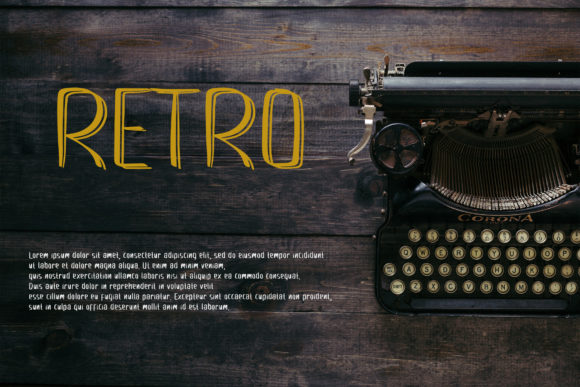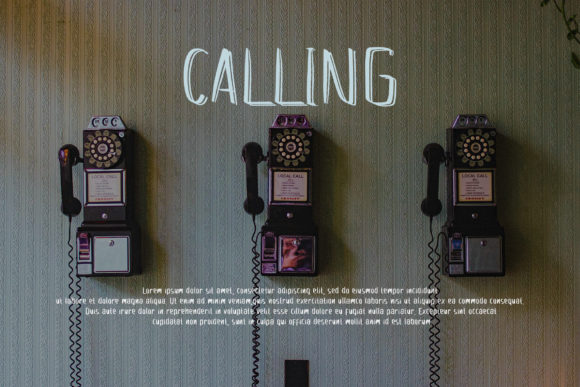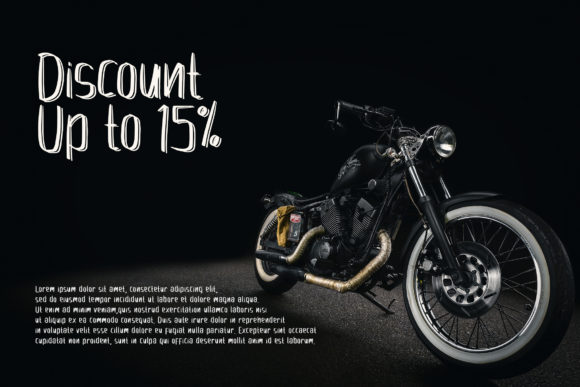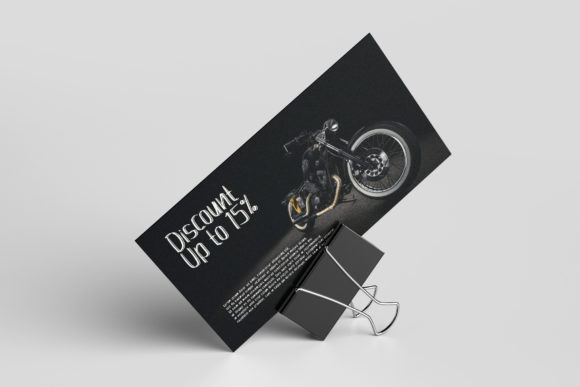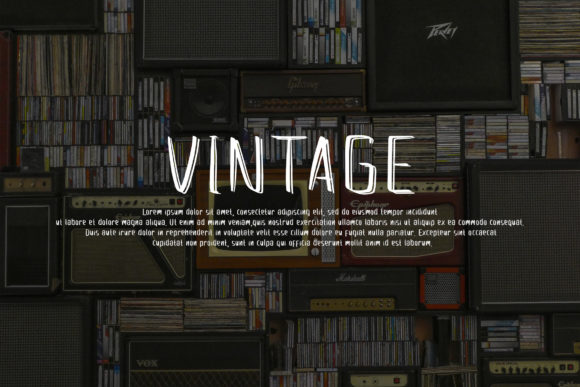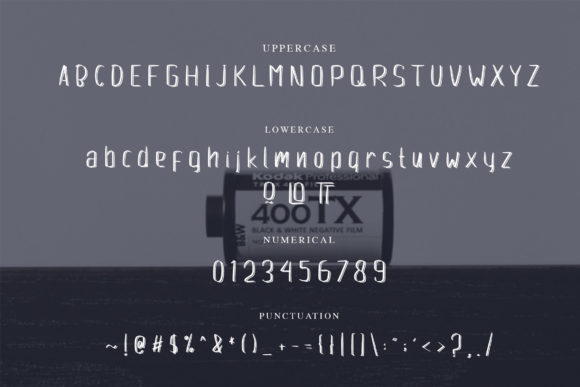
The Moment of Inspiration
It’s that instant when the creative spark ignites, and a blank page transforms into a canvas of endless possibilities. You’re on a mission to craft a unique visual identity, and the perfect font can make all the difference. Whether you’re designing a website, business card, or social media campaign, finding the right font can be a daunting task.
Enter the Goflow Font, a sleek and modern display font designed to add a touch of sophistication to your designs. With its thin lines and clean typography, Goflow Font is perfect for making a statement without overpowering the content. For designers, this versatile font is a valuable asset, offering a fresh and unique perspective on traditional typography.
Goflow Font Key Features
- Font Family: Goflow Font is a modern sans-serif font family designed for digital interfaces.
- Character Count: The font family includes over 700 glyphs, covering a wide range of languages and characters.
- Unique Characteristics: Goflow Font features a unique blend of geometric and organic elements, resulting in a distinctive and recognizable visual identity.
Goflow Font Review
I recently had the chance to work with the Goflow font, and I must say it’s been a mixed bag. On the one hand, there are some things that I really like about it.
- ✨ Elegant and sophisticated design: Goflow font has a clean and modern look that makes it perfect for high-end branding and advertising projects.
- ✨ Highly legible: The font is very easy to read, even at small sizes, making it ideal for body text and headings.
- ✨ Wide language support: Goflow font supports a wide range of languages, including many non-Latin scripts.
However, there are also some limitations that I’ve encountered.
- ⚠️ Limited font weight options: While the font has a good range of font styles, the weight options are somewhat limited, which can make it difficult to achieve the desired level of contrast.
- ⚠️ Not suitable for display text: While the font is great for body text, it’s not ideal for display text or titles, where a bolder, more attention-grabbing font is often preferred.
Overall, I’d say that the Goflow font is a solid choice for certain types of projects, but it’s not without its limitations. If you’re looking for a clean and modern font for body text, Goflow might be a good option. However, if you need a font with more flexibility or a bolder style, you might want to consider other options.
Common use cases for Goflow Font include:
– Creating modern and clean typography for branding materials.
– Adding a touch of elegance to invitations and event materials.
– Designing digital products with a sleek and minimalist aesthetic.
– Experimenting with font combinations to create unique and eye-catching designs.
Alternatives to Goflow Font for Designers
Inter Font is a sans-serif typeface designed by Rasmus Andersson. It is a highly legible and versatile font suitable for a wide range of applications, from body text to display headings. Inter Font is a great alternative to Goflow Font for designers who want a clean and modern look.
Comparison to Goflow Font: Inter Font has a more geometric and monolinear feel, whereas Goflow Font has a more rounded and organic appearance. Inter Font is also more suitable for digital applications, while Goflow Font is more suited for print materials.
Montserrat Font is a sans-serif typeface designed by Julieta Ulanovsky. It is a highly condensed and modern font that is perfect for urban and tech-related designs. Montserrat Font is a great alternative to Goflow Font for designers who want a strong and edgy look.